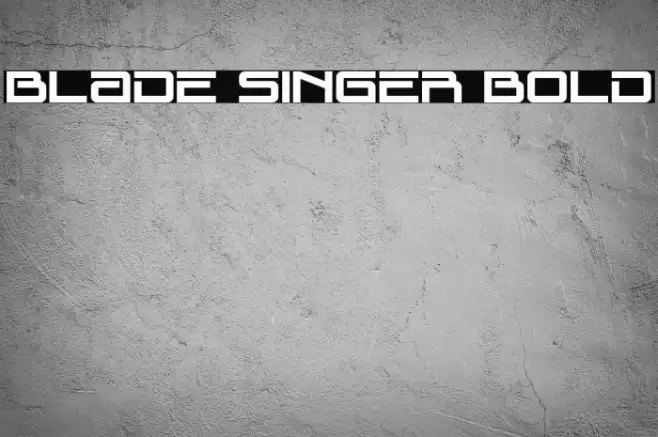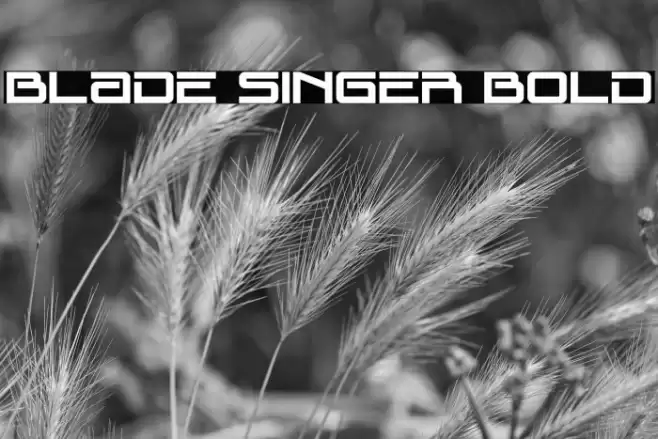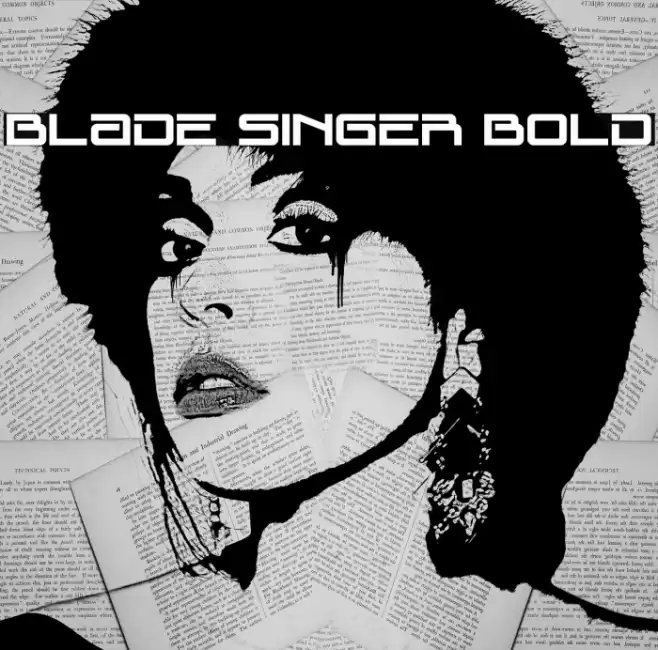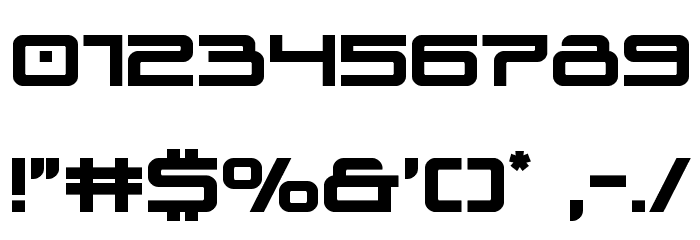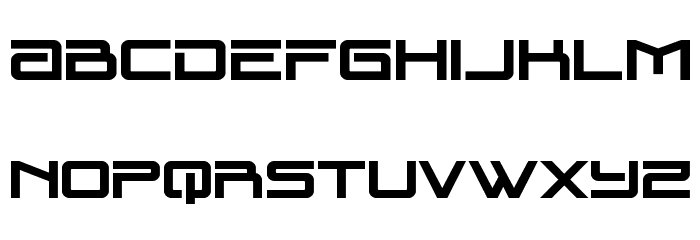
Blade Singer Bold Font
Blade Singer Bold Description
This font features a futuristic and geometric design, characterized by its bold and angular letterforms. The uppercase and lowercase letters maintain a consistent height, creating a uniform appearance. The characters are constructed with straight lines and sharp angles, giving them a mechanical and modern feel. The numbers and special characters follow the same design principles, ensuring a cohesive look across all glyphs. The font's style is suitable for projects that require a strong, impactful presence, such as technology branding, sci-fi themes, or modern advertising.
A bold, futuristic font with geometric and angular letterforms from Uncategorized fonts.
- Proposed Projects: Ideal for technology branding, sci-fi themes, modern advertising, and video game titles.